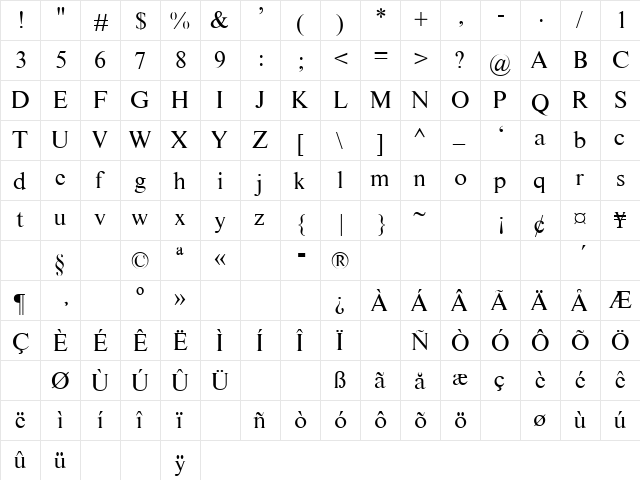
Walkin' The Dog 7 Regular
Walkin' The Dog 7 takes a measured approach to typography — its balanced proportions and neutral character make it a reliable workhorse for both digital and print work.